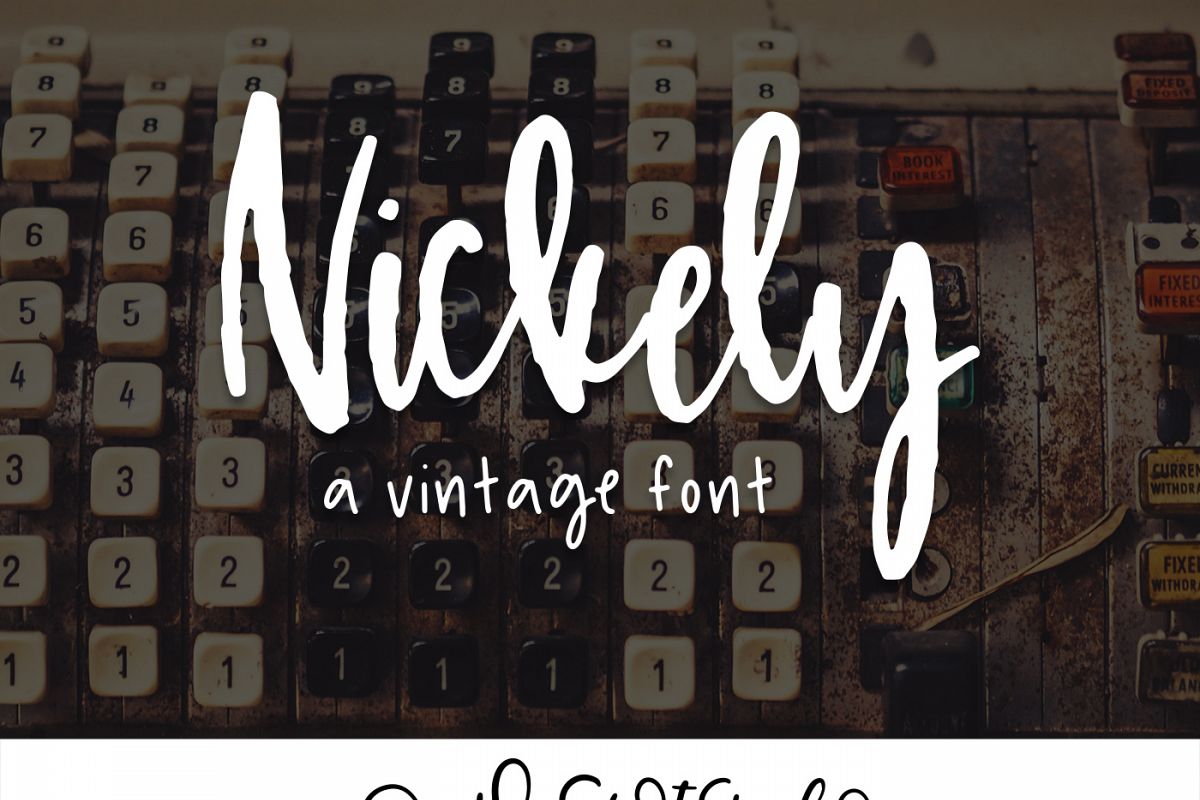
Nickely - A Textured Script
Nickely is a nice, whimsical textured script perfect for branding or your next creative project. Includes upper, lower, punctuation, and extras for you to switch things up for total customization!